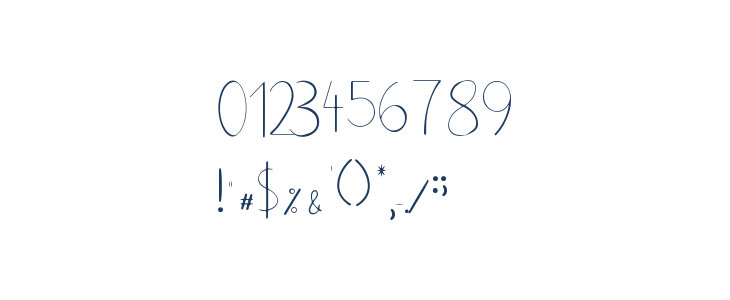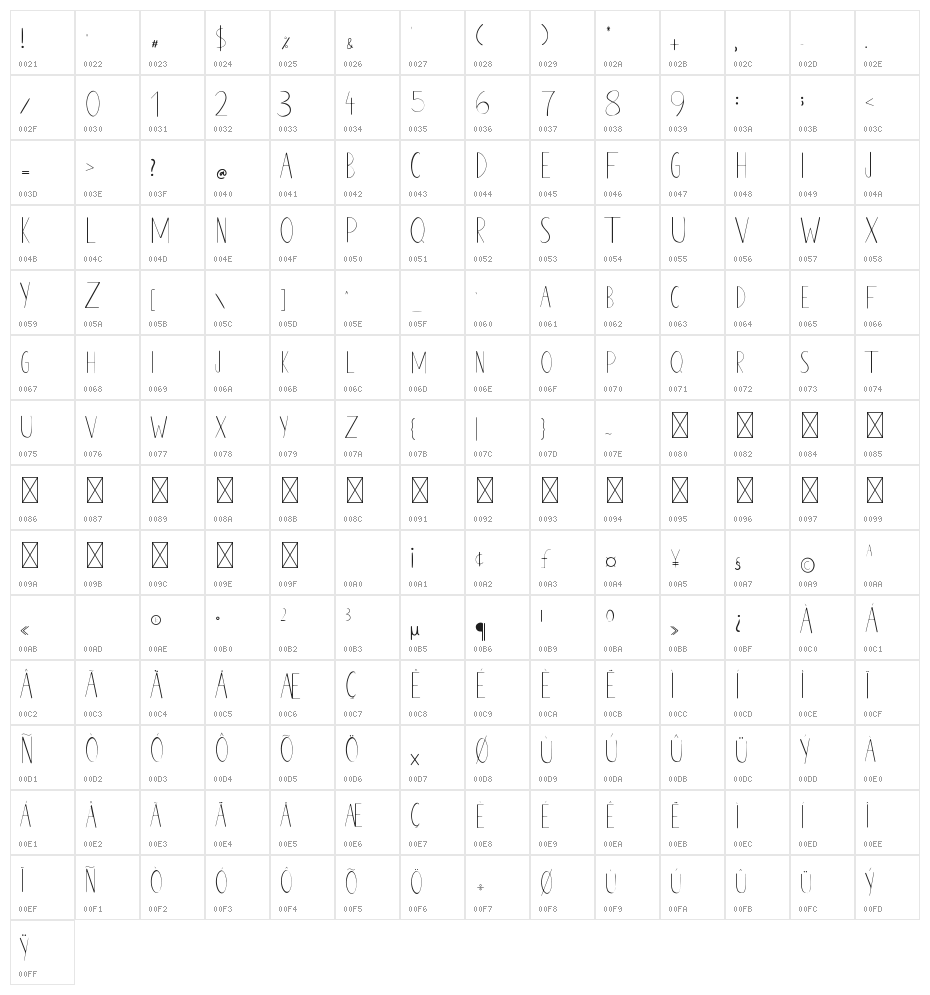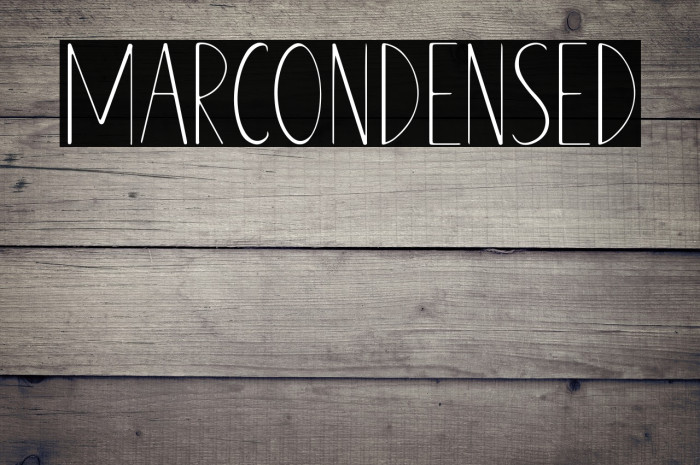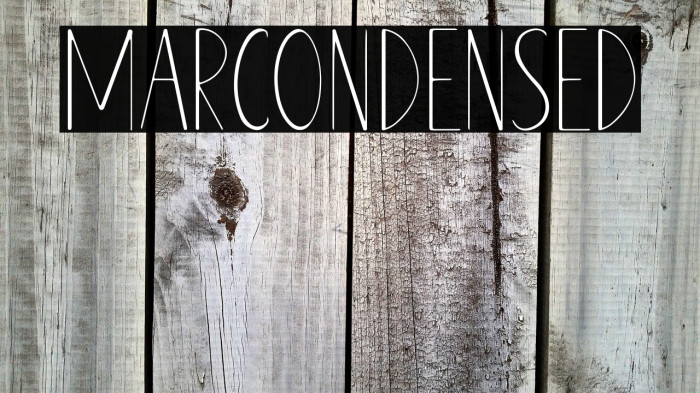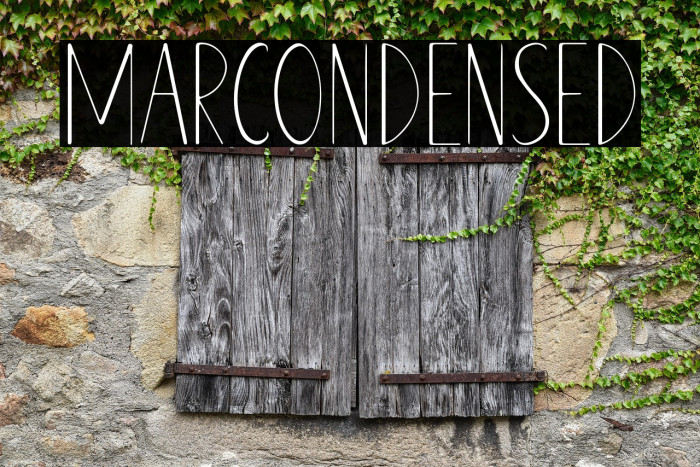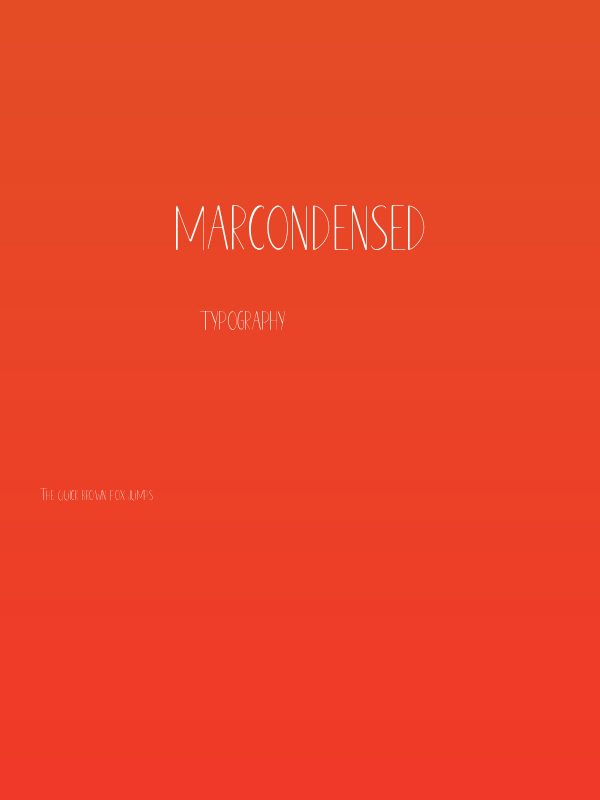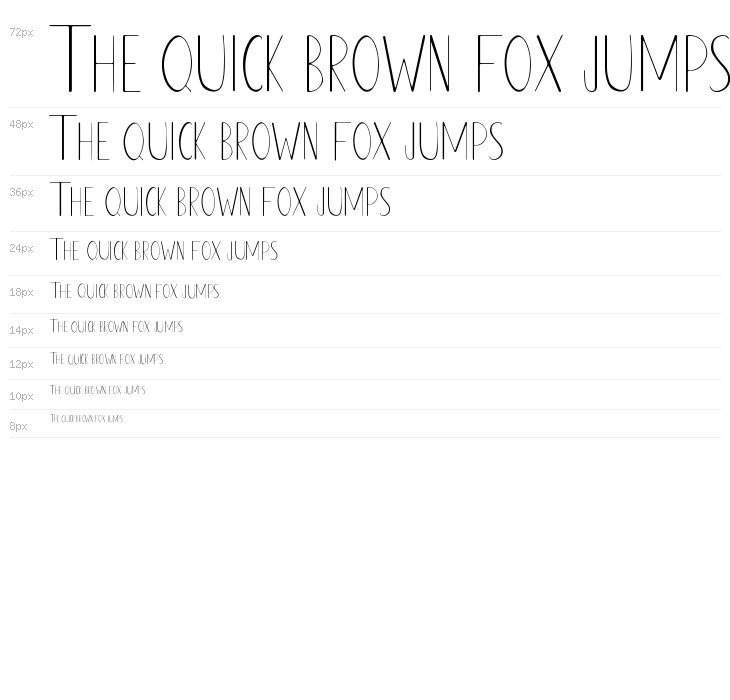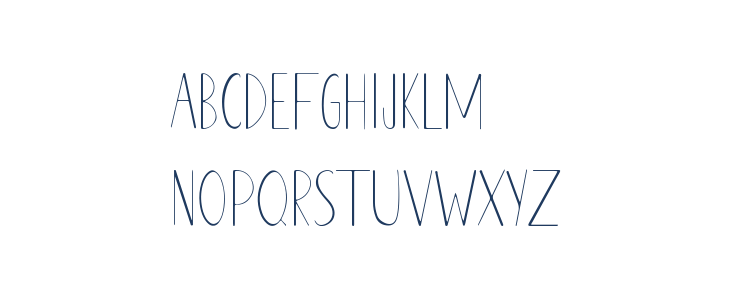
MARCONDENSED Font
MARCONDENSED Description
This font features a sleek, elongated design with a distinctly modern and minimalist aesthetic. The characters are tall and narrow, giving it a condensed appearance that is both elegant and efficient in space usage. The strokes are consistent in width, providing a uniform look across all characters. The uppercase and lowercase letters maintain a harmonious balance, while the numerals and special characters are crafted to match the overall style seamlessly. This font's clean lines and geometric forms make it versatile for various design applications.